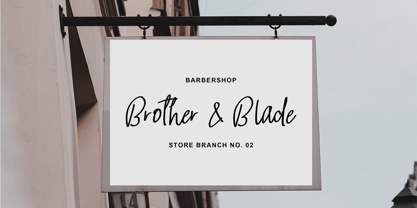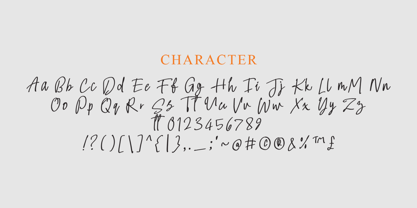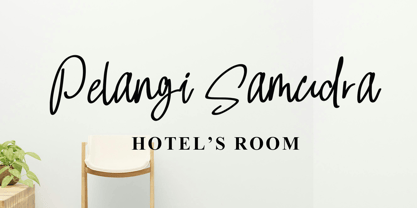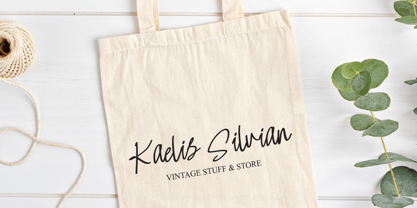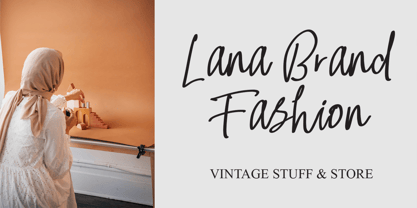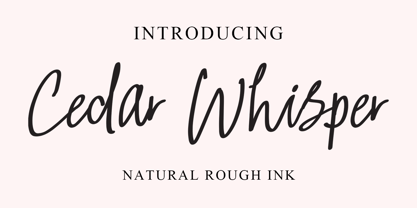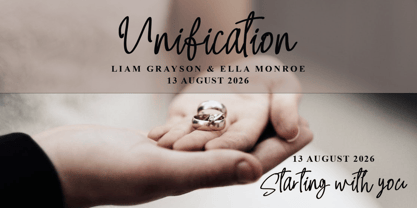
Cedar Whisper
by Fontysia
The Cedar Whisper Font Family was designed by Rizal Aiyub and published by Fontysia. Cedar Whisper contains 1 styles. More about this family
Cedar Whisper is designed to emulate natural handwriting, A beautifully designed handwriting that exudes natural elegance and personality. With natural strokes, delicate strokes, and subtle imperfections, this font captures the essence of authentic handwriting.
Ideal for wedding invitations, logos, branding projects, display product, invitation design, social media posts, and more, this font effortlessly blends charm and versatility. With its organic feel and stylish extras, Midnight is your go-to choice for creating designs that are as unique as they are timeless.